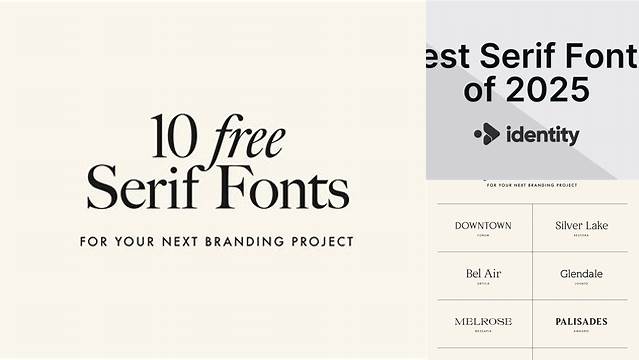
Top Free Serif Fonts To Download In 2025
Alright, design enthusiasts! Let's dive into the world of typography and explore the best free serif fonts that will be rocking the design scene in 2025. Choosing the right font can make or break a design, and serif fonts, with their elegant and timeless appeal, are always a solid choice. Whether you're a seasoned designer or just starting out, having access to a diverse collection of free serif fonts is a game-changer. In this guide, we'll uncover some amazing options, discuss their unique characteristics, and provide you with everything you need to elevate your projects. Get ready to discover fonts that blend classic charm with contemporary flair, perfect for everything from branding and web design to print materials and beyond. So, let's get started, and find the ideal best free serif fonts for your creative projects!
1. Classic Serif Fonts: Timeless Choices for 2025
When you think about best free serif fonts, the classics are always a great starting point. These fonts have stood the test of time and offer a sense of sophistication and readability that’s hard to beat. For 2025, expect to see these timeless options making a comeback, and with good reason. They're versatile, reliable, and perfect for projects that require a touch of elegance and gravitas. Think about the traditional fonts like Times New Roman, Garamond, or Bookman Old Style, which are known for their excellent readability and suitability for body text. But let's not forget that there are also modern variations, which have been redesigned and updated to give them a modern flair. This combination of classic and contemporary is what makes them so appealing. These fonts are great for books, long-form articles, and any project where clarity and readability are paramount. They provide a sense of authority and trust, which is great for brands and businesses that want to project a professional image. Their timeless nature means they never really go out of style. You can use them year after year, project after project. Furthermore, these fonts are usually widely available and easy to access, making them a practical choice. Whether you are working on a complex design or a simple document, a classic serif font provides a solid foundation. In the world of best free serif fonts, you will always find these reliable choices.
1.1. Best Free Serif Fonts: Embracing Heritage
Best free serif fonts have a rich heritage. They harken back to the era of print, and the styles of these fonts were heavily influenced by the tools used at the time, such as the broad-nibbed pen. These fonts' legacy is very interesting because it goes back to the history of printing. These fonts were developed from handwriting and were the first to be made to be used with the newly developed printing presses. These fonts gave a sense of formality and sophistication. For 2025, this heritage is more important than ever. It's about embracing the past and connecting it to the future. When you choose a classic serif, you are paying homage to that rich history and giving your work a sense of timelessness. In the 2025 design landscape, heritage is a trend. Designers are incorporating old elements with new ones, and classic fonts fit this design style perfectly. The classic serif font gives a familiarity and a visual comfort that's difficult to match. These fonts are like trusted friends. They never go out of style, and they always do the job. It is a reliable option that helps provide a solid foundation for your designs. Whether you're creating something digital or for print, the classic serif will always deliver.
1.2. Modern Interpretations of Classic Serif Fonts
The best free serif fonts also have great modern interpretations. The world of design is always evolving, and it is important to keep up with the times. Modern interpretations take inspiration from the classic fonts but add a new twist and contemporary style. These updated fonts give a sense of freshness and innovation. They can have subtle or dramatic changes, such as updated letterforms, refined proportions, and sometimes a touch of geometric influences. These modern interpretations are perfect for designs that need a blend of tradition and innovation. In 2025, expect to see even more of these styles, as designers look to capture the nostalgia of the classics but also give the designs a modern, exciting feel. These fonts are great for branding, advertising, and web design, where the design needs to appeal to both a sense of history and a contemporary audience. They also offer excellent readability, which is very important in modern designs. Modern interpretations of serif fonts also frequently come with wider character sets and design features, providing additional flexibility. These updated options give designers the ability to create a unique and captivating design that will stand out. Embracing this trend means you have the ability to create a design that is both timeless and cutting-edge, something very important in the design landscape of 2025.
2. Elegant and Stylish Serif Fonts for Branding
For branding projects, a great font is very important. The font you choose reflects the brand's personality and values. Elegant and stylish serif fonts provide sophistication and professionalism. When you are looking for best free serif fonts for branding, you want to choose the ones that will enhance the brand's message. Serif fonts that are elegant and stylish are great for luxury brands, fashion, and high-end products. These fonts communicate quality, taste, and an eye for detail. In 2025, the font trends will focus on minimalism and clean lines, so selecting a serif font that aligns with this approach will be important. Serif fonts will show sophistication, which is the current trend. This could involve a variety of approaches, such as using thin, delicate serifs or very precise letterforms. You could also opt for a font with a unique curve that will become a signature element of the brand. These fonts provide a sense of harmony, making your designs visually appealing. The focus is on creating a seamless experience, and a well-chosen font will do the job perfectly. Consider the tone and feel of your brand and choose a font that perfectly fits your brand identity. From logos to marketing materials, a great font will reinforce your brand message and leave a lasting impression.
2.1. Serif Fonts for a Luxury Brand Identity
If you are creating a luxury brand identity, choosing the best free serif fonts is essential. These fonts bring elegance, sophistication, and a sense of prestige, which are necessary for luxury brands. When you select a font, think about the overall image you want to create. A luxury brand should focus on fonts with clean lines, elegant curves, and perfect proportions. A good choice is a font with a touch of classic serif, like a Didone style, which is famous for its high contrast and refined elegance. This font is perfect for logos, headlines, and brand messaging, giving a sense of luxury and refinement. The type of font that is also a good option is a modern serif, which combines tradition with a contemporary twist. These fonts are also great for luxury products. You can use them for websites, marketing materials, and packaging. A good serif font is the perfect tool that sets the tone of a brand identity. Make sure the font aligns with your brand's values and target audience. A well-chosen serif font will reinforce your message and build a brand that will be remembered.
2.2. Pairing Serif Fonts with Other Font Styles
Best free serif fonts are often mixed with other font styles. One of the best things you can do to boost a design is combining different fonts. You can create interesting visual designs. When working on a project, you might want to pair a serif font with a sans-serif font for headlines, body text, and call-to-action buttons. Consider the contrast and make sure they work together. This creates a balance between the elegance of the serif and the cleanliness of the sans-serif. You can also pair a serif font with a script font for a more unique style. This style works great for branding that needs a personal touch. In 2025, mixing fonts will continue to be popular, so mastering the skill of pairing fonts is essential. Another thing to consider is the overall feel you want to create with your design. A classic serif font can give a design a sense of timeless elegance, and a modern sans-serif will give the design a modern style. You can also combine fonts that use a similar weight and style. This will help you maintain visual consistency. Mixing fonts allows you to create depth, while also creating a look that feels tailored and intentional. When choosing your fonts, be sure to keep the readability and contrast in mind, so your design looks great and is accessible to all your audience.
3. Modern Serif Fonts with a Contemporary Edge
Modern serif fonts continue to evolve, with a focus on innovation. For 2025, expect to see these best free serif fonts with unique twists. These fonts bring a contemporary edge to design, blending traditional styles with a more modern style. Modern fonts can have geometric influences, bold weights, or an unusual design. They're perfect for projects that need a touch of originality. These fonts are a great option for those who want to make a statement. Modern serif fonts provide a fresh aesthetic that helps your design stand out from the crowd. These fonts give a sense of sophistication, which is a plus for any project. In 2025, designers will continue to push the boundaries. These fonts are great for web design, branding, and digital media. They work really well in situations where you want to create a unique visual experience. These fonts will allow you to create a dynamic look that will keep your audience engaged. The best part is that you can always find free modern serif fonts to help your projects. So if you're looking to modernize your design, give them a try.
3.1. Exploring Geometric Serif Font Styles
Geometric serif fonts are a combination of precision and simplicity. The best free serif fonts in this category combine the geometric elements with the elegance of serif. These fonts are characterized by clean lines, geometric shapes, and consistent proportions. In 2025, this trend will be popular. Designers want a balance between the modern and the classic. These fonts are great for brands that want to show both modern and contemporary aesthetics. These fonts often have a balanced and structured look. They are suitable for websites, logos, and branding, and will bring a clean and modern style. The clean and structured look is an important part of modern designs, and it provides a sense of order. Geometric fonts give a modern aesthetic and make them stand out in the digital space. The geometric approach also makes them easy to read and use. This is a great advantage in the modern world. With this style, you can have the best of both worlds. You can give a design a fresh feel while also maintaining a level of elegance and sophistication. If you are looking for a font that gives a modern look, then a geometric serif is a perfect choice.
3.2. Bold and Statement-Making Serif Fonts
If you want to make a statement with your design, then the best free serif fonts are a perfect option. These fonts have strong character and are great for headlines, titles, and display purposes. In 2025, boldness will still be a trend. This will make your design grab the viewer's attention. These fonts can vary in style, from high-contrast designs to unique letterforms that make a statement. Bold fonts help your design stand out in a crowded market. These fonts give a strong look, which is great for a variety of projects. Bold serifs add a touch of character to your work. They make it memorable. These fonts are great for branding, advertising, and social media, because they're hard to miss. Bold serifs can also be very versatile, providing a balance between form and function. Make sure you use these fonts carefully and balance them with the other elements. You have a great chance of giving your design a strong visual style that's sure to leave an impact.
4. Readability and Versatility in Serif Font Selection
Choosing a readable and versatile font is essential for any design project. When selecting the best free serif fonts, focus on clarity and flexibility. Readability ensures your message is clear, and versatility allows the font to adapt to different uses. These two factors are essential to the success of a font. A good font is great for both print and digital media. The best fonts have a clear distinction between characters and can be easily read at different sizes. Versatility means the font can be used in various applications and styles. In 2025, the trend will be to create designs that adapt to different platforms. A versatile font will make this easier. You can use it for headlines, body text, or display purposes. You want to select a font that complements your message and brand identity. Pay attention to the font's character set, and make sure it supports the languages you need. This will help you create designs that look great and are accessible to a diverse audience. The combination of readability and versatility ensures your designs work well across multiple platforms and connect with a broad range of users.
4.1. Serif Fonts Optimized for Digital Display
Best free serif fonts are great for digital display. Modern design is heavily focused on digital platforms, so it’s essential to choose fonts that are optimized for screens. Fonts designed for digital display have qualities that enhance readability and visual appeal on various devices. These fonts usually have clear letterforms, distinct characters, and optimized kerning to ensure comfortable reading. These are important qualities for digital display. You want the font to adapt to various screen sizes and resolutions, so it looks great on smartphones, tablets, and desktop computers. These fonts usually come with different weights, which allow for different use cases. This lets you highlight the important parts of your design. Fonts designed for digital display are also optimized for different operating systems and browsers, which makes them very versatile. Choosing a font that’s designed for digital use is a great way to ensure your content is accessible and looks great on any device. In 2025, digital media will continue to dominate. Selecting these fonts will help you build a strong presence in the digital space and communicate your message effectively.
4.2. Serif Fonts with Extensive Character Sets and Language Support
When selecting the best free serif fonts, make sure the fonts come with extensive character sets and language support. This helps create designs that are useful for a global audience. A well-designed font must have a broad selection of characters, including letters, numbers, punctuation, and symbols. You want the font to support multiple languages. This will help your design connect with a diverse audience. Look for fonts that support a wide range of scripts, like Latin, Cyrillic, Greek, and more. You can find fonts that have OpenType features that support the design and flexibility of these fonts. This will help you enhance your designs. In 2025, the global market will increase. Having fonts with extensive character sets and language support is essential for international branding. By picking these fonts, you'll be able to develop designs that look great and are understandable to a wide audience. This can also help you expand your design projects.
5. Where to Find and Download Free Serif Fonts
Once you have decided on which fonts to use, the next question is where to find them. There are many places to download best free serif fonts. Knowing the most reliable sources can save time and help you avoid copyright issues. When selecting a font, make sure it comes from a legitimate source. You can also verify the font's license to make sure that it is free for both personal and commercial use. When you're working with free fonts, be mindful of copyright. Checking the license is important to ensure that the font can be used in your projects. Some licenses allow only personal use. Knowing where to find reliable sources will also save you time. Many websites specialize in free fonts, so you can browse through their collections and find the perfect match. Before downloading any fonts, read the terms of service and make sure you understand the usage rights. Taking these steps is important to ensure your projects are legal and to maximize the use of these incredible fonts.
5.1. Top Websites for Free Serif Font Downloads
The best free serif fonts are just a few clicks away. There are many reputable websites that offer an extensive selection of free serif fonts. Websites like Google Fonts are excellent choices. They offer a massive collection of fonts. You will also find websites like DaFont and Font Squirrel, where you can find a variety of fonts. When visiting these sites, be sure to check the license. You can easily browse the selection of free serif fonts. When visiting these sites, you can browse the options and find one that suits your design. Be sure to explore the different styles and variations. These websites also offer various design tools and resources. You can use them to experiment with different fonts. This will help you find the one that best suits your project. These websites are great because they provide easy access and a wide range of fonts. Make sure you keep the licenses and restrictions in mind. Knowing where to find these fonts will help you access the best selection of free serif fonts.
5.2. Licensing and Usage Rights for Free Serif Fonts
Knowing the licensing and usage rights is essential when working with best free serif fonts. The licensing determines how you can use the font. You must understand the terms before using a font for commercial or personal projects. Fonts come with different licenses. The most common is the Open Font License, which permits free use, modification, and redistribution, even for commercial purposes. Some fonts come with restrictions, such as the requirement to give credit to the designer. You should always read the license agreement. This will help you understand how the font can be used. Paying attention to these details is important to ensure that your projects comply with the law. In 2025, the use of digital design is very important. You must have a good understanding of copyright and intellectual property. You can find the licensing information on the website where you downloaded the font. This will help you ensure that you have a successful design. Make sure you respect the designer's work and the legal terms.
6. Serif Fonts and Web Design: Best Practices
Serif fonts and web design have a significant relationship. The proper use of these fonts can improve readability, enhance the user experience, and improve the overall aesthetic of your website. In 2025, we will see the best free serif fonts and web design will be the focus. When you want to use serif fonts for web design, there are a few best practices to keep in mind. First, focus on readability. Serif fonts can be more challenging to read on screens. The fonts will look great on smaller screens. Choose serif fonts that are optimized for digital displays. Secondly, ensure that the font size and line height are appropriate. You want your users to be able to read your content clearly. Also, make sure the font complements your website's style. The color scheme must fit the style of your website. Test how the font looks across all the different devices. Test your website on different devices. You want to ensure the font is rendering as expected. Proper utilization of serif fonts can make your website look amazing, and create a great user experience. When you take these factors into consideration, you will be able to create websites that capture the viewer's attention.
6.1. Readability Considerations for Serif Fonts on the Web
When it comes to web design, readability is everything. One of the most important factors is the font you choose. While best free serif fonts can add elegance to a website, it’s important to consider the readability. The readability of a serif font on the web depends on several factors, including screen resolution, display settings, and the font itself. You must select a serif font that is optimized for digital displays. These fonts are designed for clarity on the screen, even on smaller sizes. Then consider the size and weight of the font. Text that is too small is challenging to read. The use of a proper size and weight improves readability. Also, consider the line height and spacing. A correct line height can enhance the visual flow, while also increasing readability. Always check the font's kerning, especially for headings and titles. Good kerning improves the overall clarity. Finally, test the font on various devices and screen sizes. The font must be readable on different devices. When you follow these guidelines, you can create a website that’s not only visually appealing but also easy to read and enjoyable to use.
6.2. Choosing the Right Serif Font for Your Website's Design
Selecting the perfect best free serif fonts for your website can make or break your site’s aesthetics. The font you choose should be compatible with your website's brand identity. It also needs to match your website's overall design. Consider the tone and the message you want to create. You can convey a sense of professionalism, and also a sense of creativity. Also, take into consideration the font's readability and versatility. Always test the font on multiple devices. Ensure that the font is easy to read on the different sizes. You may consider pairing your serif font with a sans-serif font for different elements. For instance, you can use a serif font for headings and a sans-serif font for the body text. You can create contrast and visual appeal. You should experiment with different font sizes, weights, and styles. Always be mindful of the context. You should choose a font that helps your website engage your audience and delivers your message. With a great selection, your website will be the best it can be.
7. Trends and Predictions for Serif Fonts in 2025
The world of typography is always evolving, and as we look ahead to 2025, some interesting trends and predictions are on the horizon. The use of best free serif fonts will continue to evolve. Designers will keep pushing the boundaries with new styles, and old styles will get new interpretations. Some key trends include the combination of traditional and modern design. Expect to see a fusion of classic serif fonts with modern influences. The second trend will be to keep the fonts readable on different platforms. Designers will give priority to fonts that are accessible and easy to read on all devices. Also, expect to see a larger variety of font pairings. In 2025, designers will continue to experiment. Bold and unique pairings will be very popular. Expect to see more fonts that offer a variety of weights and styles. This allows designers to create a more flexible experience. The trends will give designers the tools they need to design websites that grab attention. Understanding these trends will help you make smart decisions.
7.1. The Revival of Classic Serif Styles
The best free serif fonts are making a comeback in 2025. Classic serif styles are known for their enduring appeal and timeless elegance. These fonts provide a sense of sophistication and familiarity. In 2025, expect to see a revival of classic styles. Designers are rediscovering the importance of a serif font. These fonts are suitable for any design. The revival is fueled by a desire to reconnect with the roots of typography. This comes at a time when the nostalgia of classic fonts is more important than ever. Modern designers are making an effort to create designs that have timeless appeal. This includes the use of classic serif fonts for branding, web design, and print. The use of classic serifs gives a solid base that designers can use. The designs can be paired with modern elements to create something unique. The revival of the classic serif fonts is about creating a sense of tradition and comfort, and also a sense of innovation. This is what makes it a very interesting trend.
7.2. Innovative Font Pairings and Design Techniques
The world of typography is constantly changing. For 2025, best free serif fonts will have innovative font pairings and design techniques. Designers are always looking for new ways to combine different font styles to create something eye-catching. Expect to see some interesting combinations. You might see serif fonts paired with sans-serif fonts for balance, or serif fonts combined with script fonts to add a touch of elegance. These styles are great for branding. When it comes to design techniques, expect to see designers experimenting with different weights, sizes, and colors. These features help create visual interest and to make the design stand out. Designers are also getting more creative with font effects, such as drop shadows, outlines, and textures. This is to enhance the overall look and feel of the design. These techniques can improve your design, and can create something that is very memorable. These new font pairings and design techniques provide a great chance for your designs to be the best they can be.